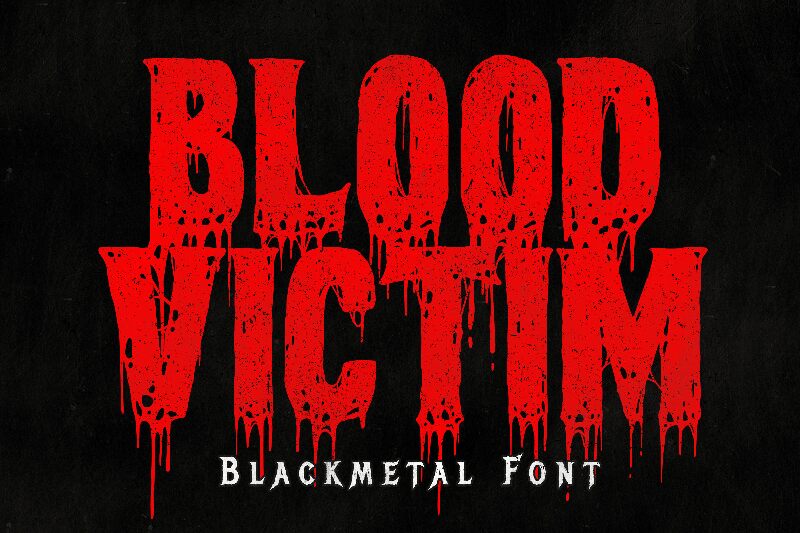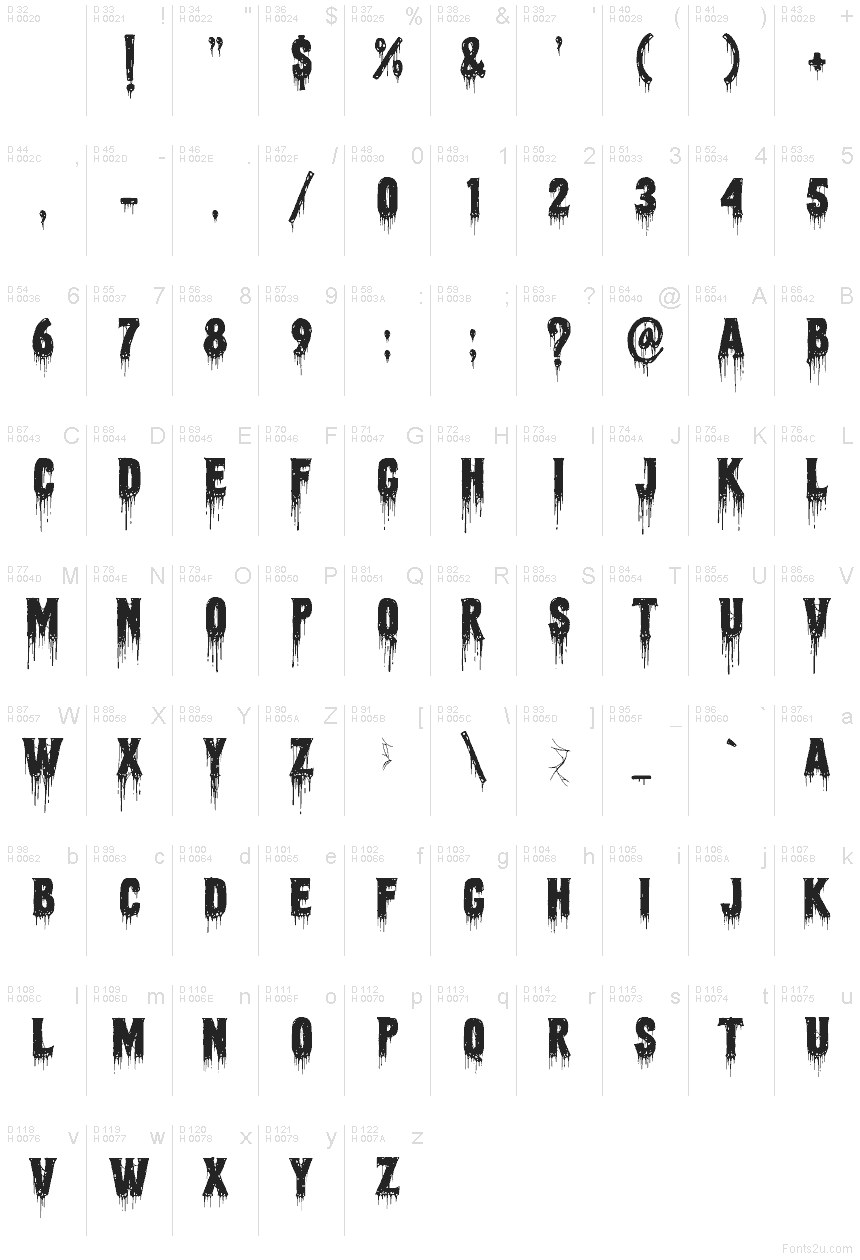
Blood Victim Zombie
Blood Victim Zombie font by Lettersiro Studio is a free scary display font. Built on thick, inky letterforms that ooze into long, gravity-pulled drips, it delivers instant dread without extra art. The ragged edges and splatter texture feel wet and visceral, giving headlines a cinematic “freshly clawed” presence that reads from across the room.
Using Blood Victim Zombie, you can hammer home haunted house flyers, Halloween party invites, horror posters, escape room signage, game titles, and YouTube thumbnails. Its gritty rhythm holds together at big sizes, so let it run large and keep copy short. Pair with a clean, condensed sans for subheads to keep the gore legible and the mood high.